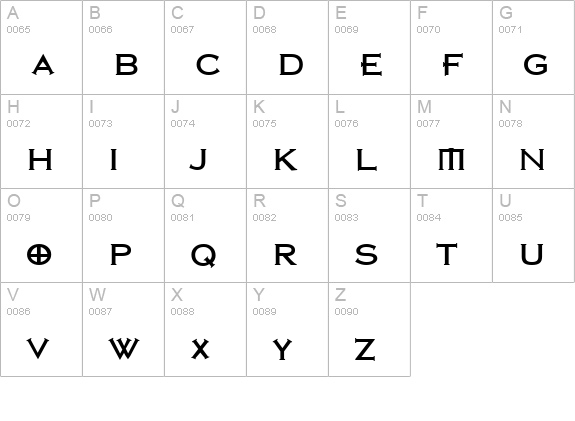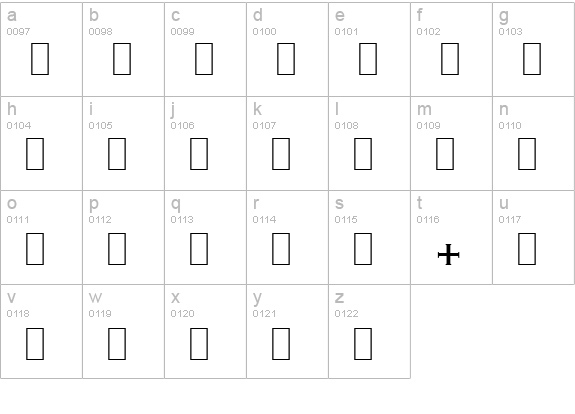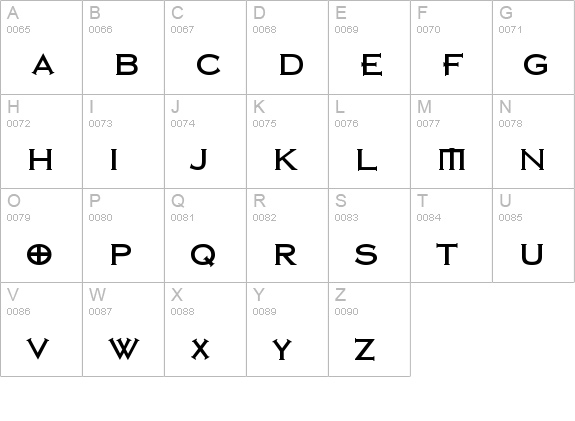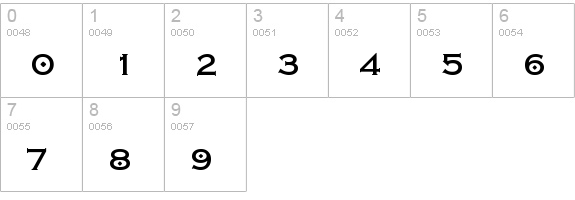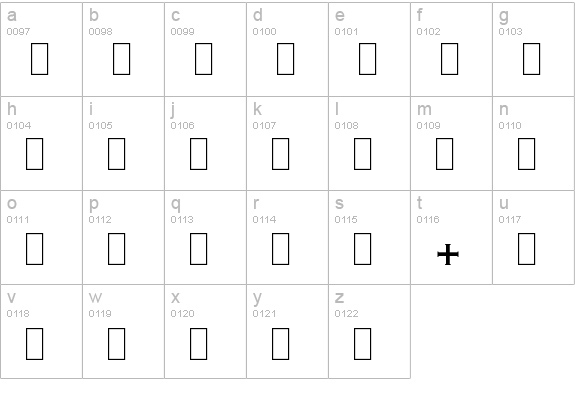
Nirvana Roman Font Details
Nirvana Roman font is a timeless and elegant typeface that exudes sophistication and style. With its clean lines and classic design, this font is perfect for a wide range of projects, from branding to editorial design. The sleek and modern look of Nirvana Roman font makes it versatile and suitable for both digital and print applications. Best of all, Nirvana Roman font is available for free download at FontsMarket.com. This means that you can easily access this high-quality font without any cost, making it a valuable addition to your font library. Whether you're working on a professional project or a personal creative endeavor, Nirvana Roman font is sure to elevate your design and make a lasting impression. Unlock the potential of this exquisite font today and take your designs to the next level with Nirvana Roman font.